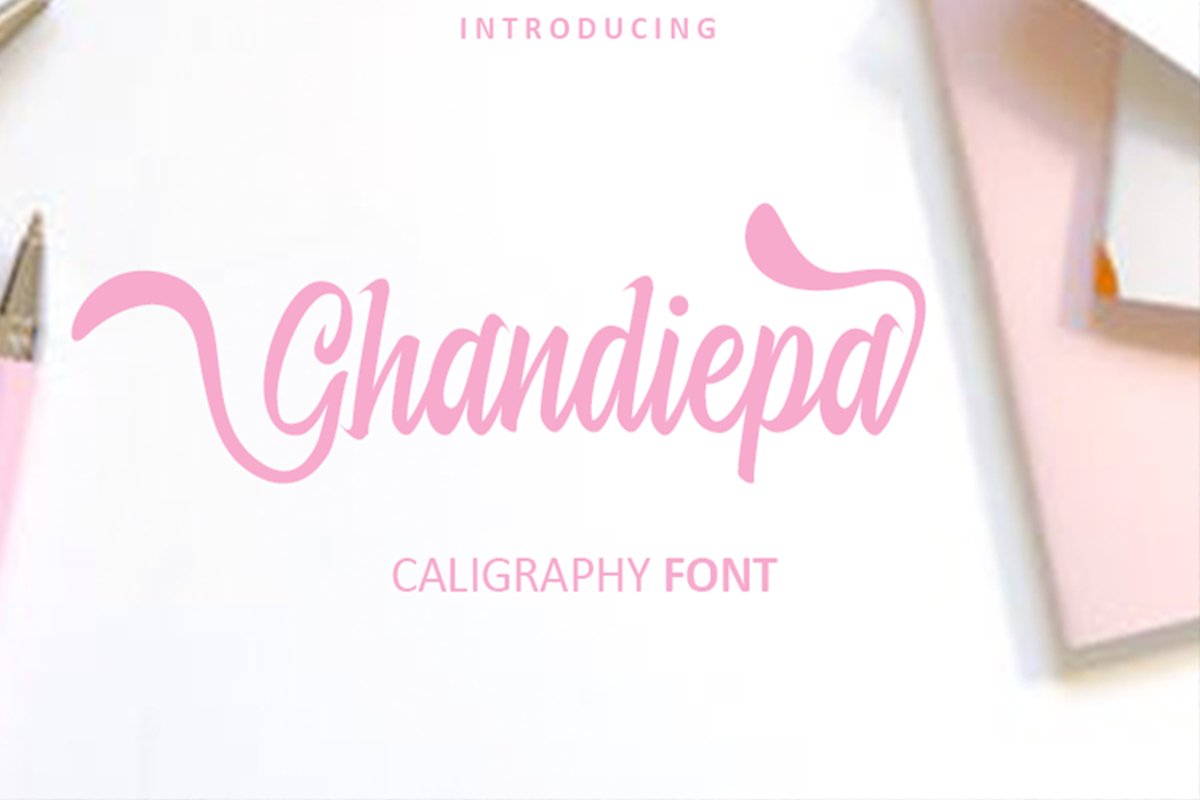
Ghandiepa
Ghandiepa embodies cuteness, playfulness, and authenticity. This enchanting calligraphy font will turn any creative idea into a true standout.